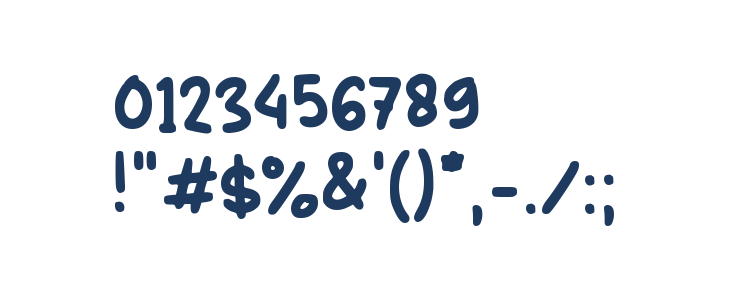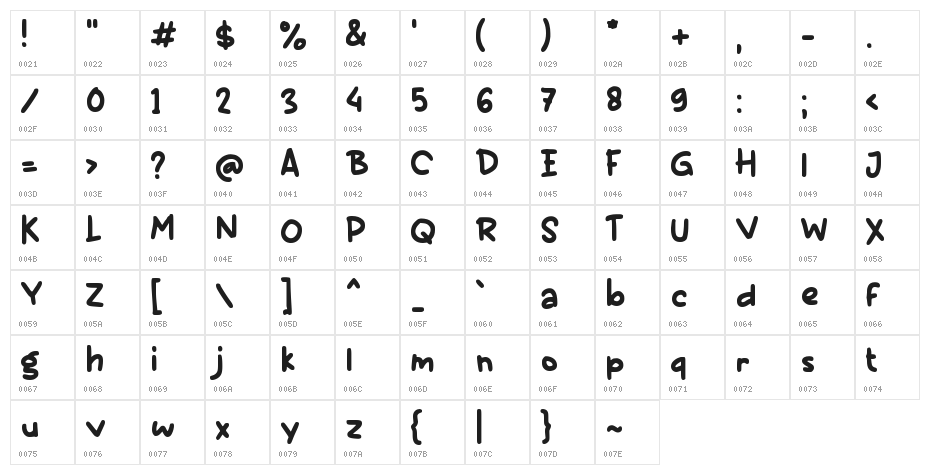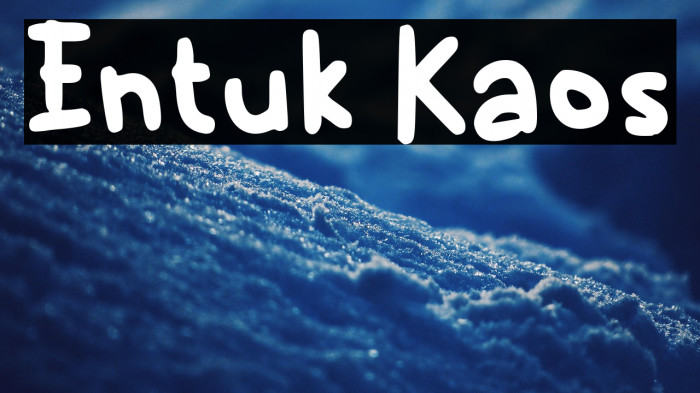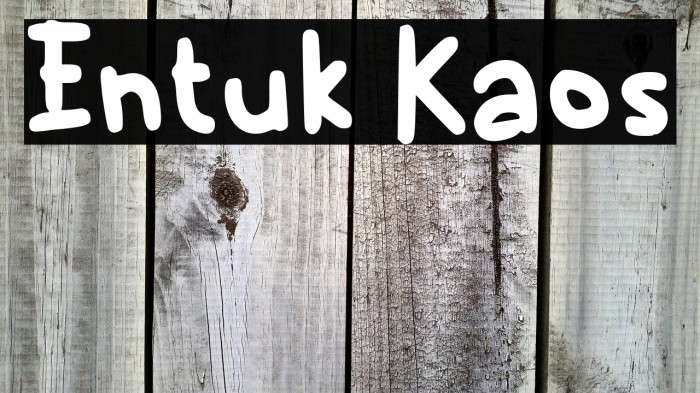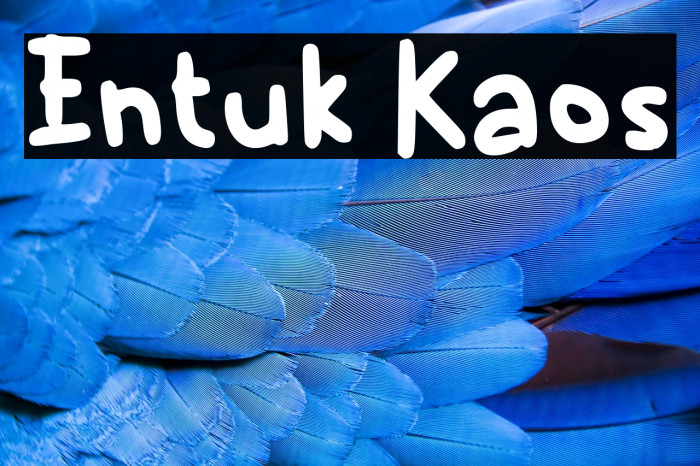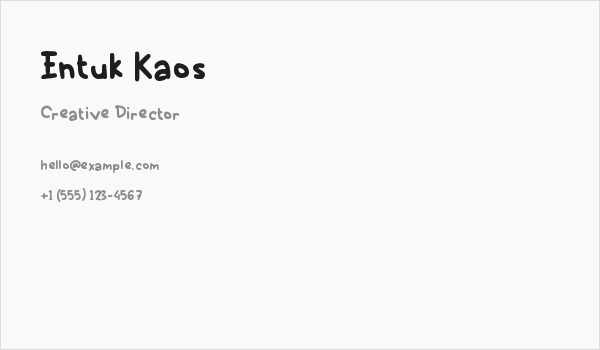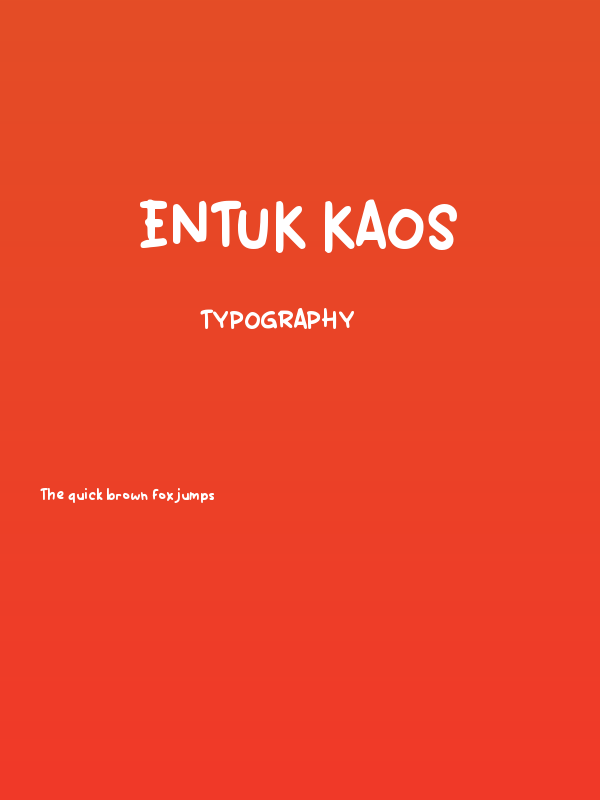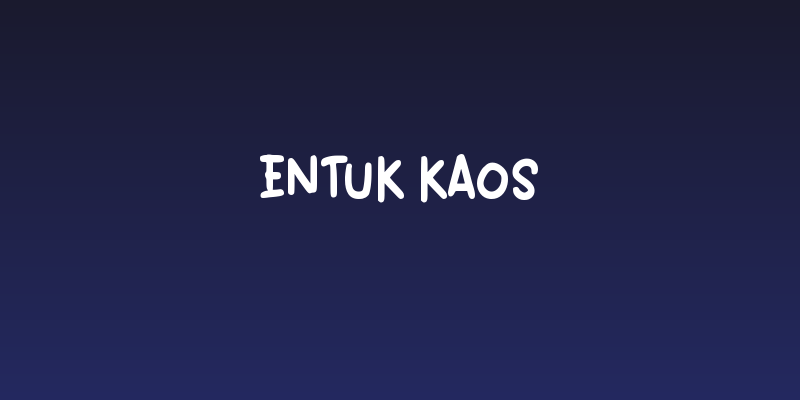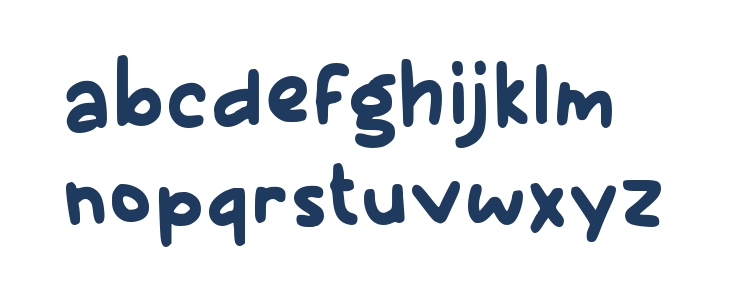
Entuk Kaos Font
Entuk Kaos Description
This playful and bold font features a handwritten style with rounded edges and a casual appearance. The characters are slightly irregular, giving it a friendly and approachable feel. The uppercase and lowercase letters maintain a consistent style, with a noticeable thickness that ensures readability. Numbers and special characters are designed to match the overall aesthetic, making the font versatile for various uses. Its informal and lively nature makes it suitable for projects that aim to convey a sense of fun and creativity.
| Proposed Projects | Ideal for children's books, comic strips, playful branding, greeting cards, and informal posters. |